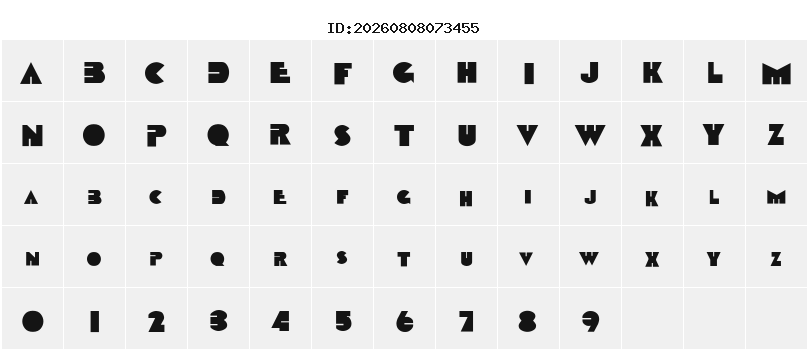
• Font Name: Prendori
• Full Font Name: Prendori
About Prendori.ttf
Prendori.ttf is a modern, elegant sans-serif font designed for ultimate readability and visual harmony. Perfect for branding, headlines, web design, and print materials.